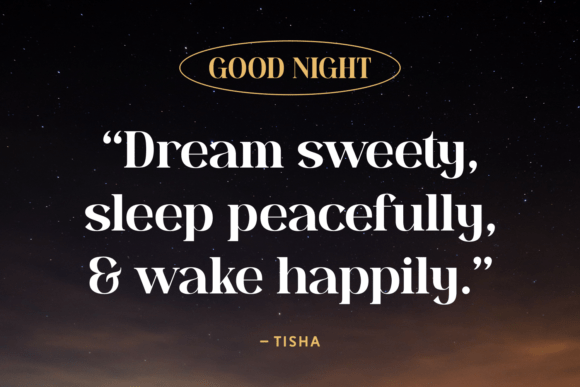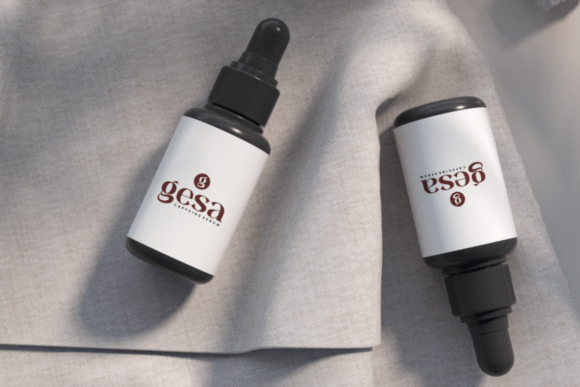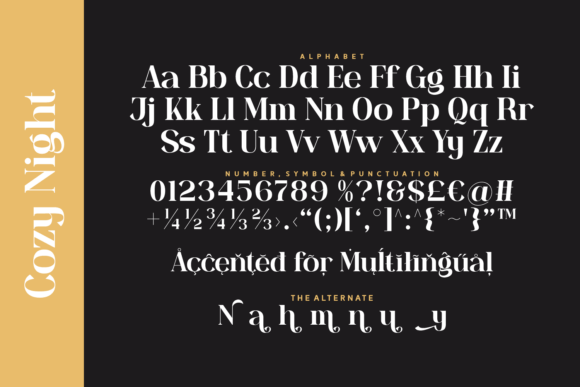
Introducing Cozy Night Font: Elevate Your Designs with Warmth and Sophistication
In the world of typography, a font can make all the difference in creating a lasting impression. For designers and crafters seeking to infuse their projects with a touch of elegance and playfulness, Cozy Night Font is an exceptional choice. This charming modern serif font combines bold elegance with a playful personality, making it perfect for a wide range of design applications.
The Characteristics of Cozy Night Font
Cozy Night Font boasts several distinctive features that set it apart from other typefaces. Its high contrast strokes add a level of sophistication, while its stylish curves bring a sense of fluidity and movement. The font also includes decorative swashes, which can be used to add a touch of whimsy and flair to your designs.
One of the standout features of Cozy Night Font is its ability to convey warmth and coziness. The font’s modern serif design creates a sense of approachability, making it perfect for designs that aim to evoke a sense of comfort and relaxation. Whether you’re working on a branding project, book cover, or social media graphic, Cozy Night Font is sure to create an inviting and unforgettable visual experience.
Cozy Night Font is a versatile typeface that can be used in a wide range of design applications. Here are a few ideas to get you started:
- Branding: Use Cozy Night Font to create a lasting impression with your brand’s logo, packaging, or marketing materials. The font’s bold elegance and playful personality make it perfect for businesses looking to establish a strong brand identity.
- Book Covers: Cozy Night Font is an excellent choice for book covers, particularly for genres such as romance, mystery, and young adult fiction. The font’s sophisticated design and decorative swashes will help your book stand out on bookshelves and online.
- Social Media Graphics: Create engaging social media graphics with Cozy Night Font. The font’s modern serif design and high contrast strokes make it perfect for creating eye-catching graphics that will help your brand stand out on social media.
- Seasonal Campaigns: Cozy Night Font is also perfect for seasonal campaigns, such as holiday promotions or summer sales. The font’s warm and inviting design will help create a sense of coziness and relaxation, making it perfect for campaigns that aim to evoke a sense of nostalgia or warmth.
Why Choose Cozy Night Font?
With so many fonts to choose from, why should you choose Cozy Night Font for your next design project? Here are a few reasons:
- Unique Design: Cozy Night Font features a unique design that combines bold elegance with playful personality. The font’s high contrast strokes, stylish curves, and decorative swashes make it a standout typeface that will help your designs stand out.
- Versatility: Cozy Night Font is a versatile typeface that can be used in a wide range of design applications. Whether you’re working on a branding project, book cover, or social media graphic, this font is sure to create an inviting and unforgettable visual experience.
Cozy Night Font is a charming modern serif font that pairs bold elegance with playful personality. With its high contrast strokes, stylish curves, and decorative swashes, this typeface brings warmth and sophistication to your design. Perfect for branding, book covers, social media graphics, and seasonal campaigns, Cozy Night Font creates an inviting and unforgettable visual experience. Whether you’re a designer or crafter, this font is sure to become a staple in your design toolkit.